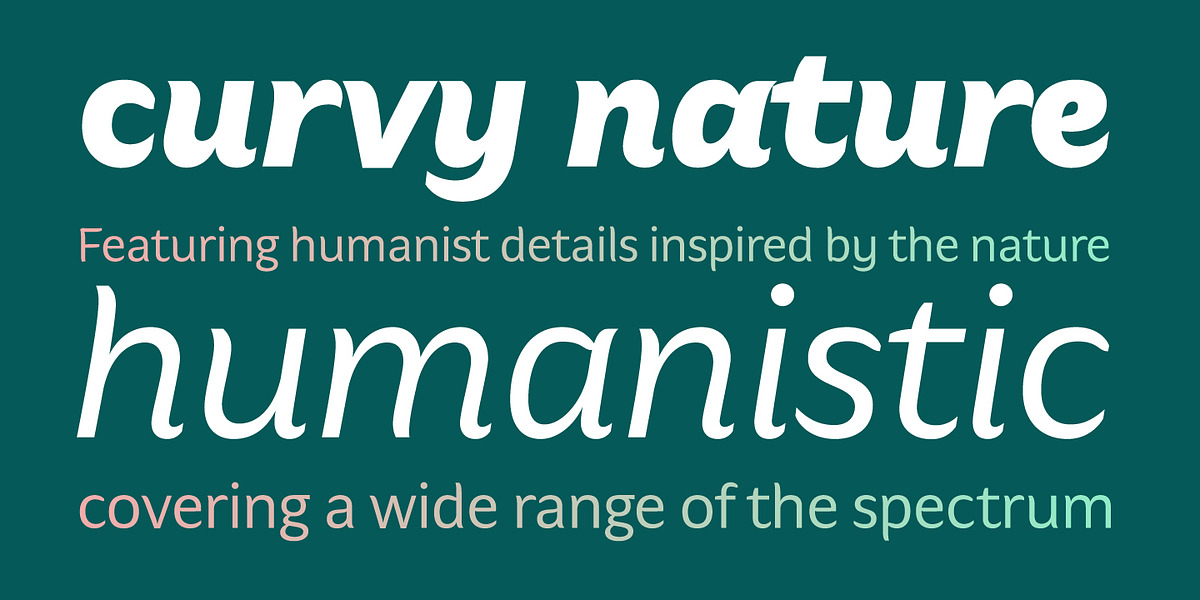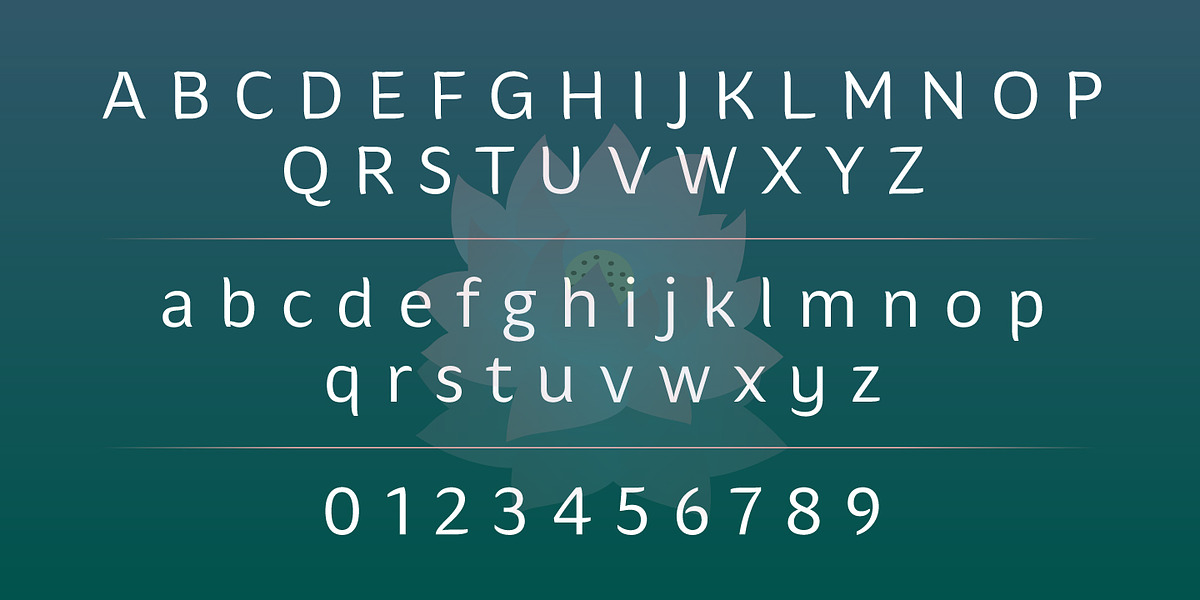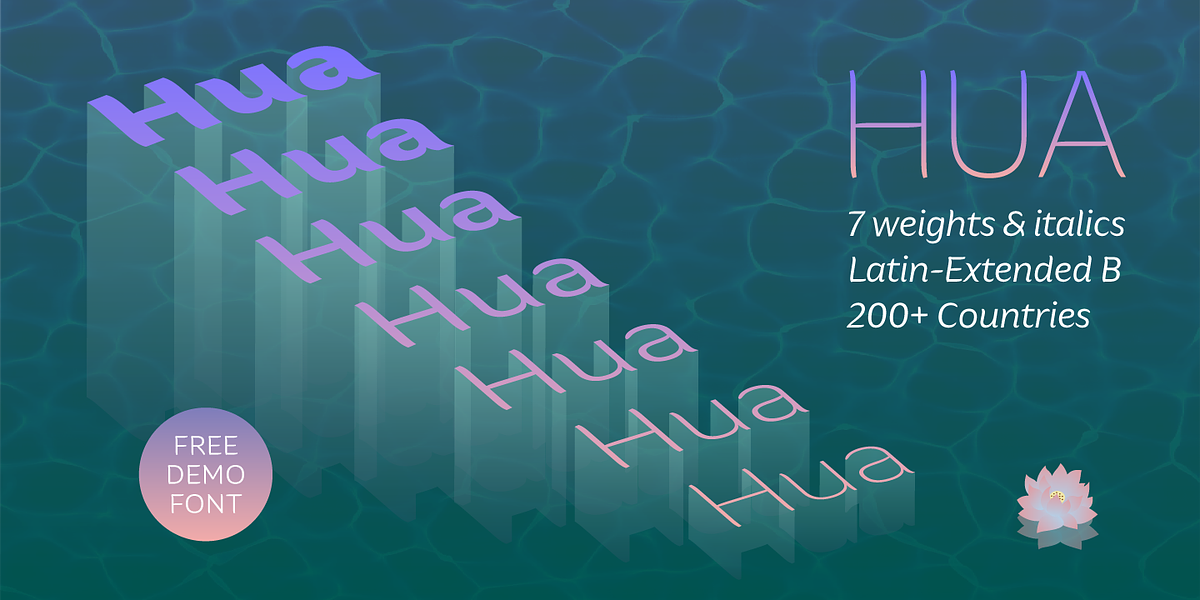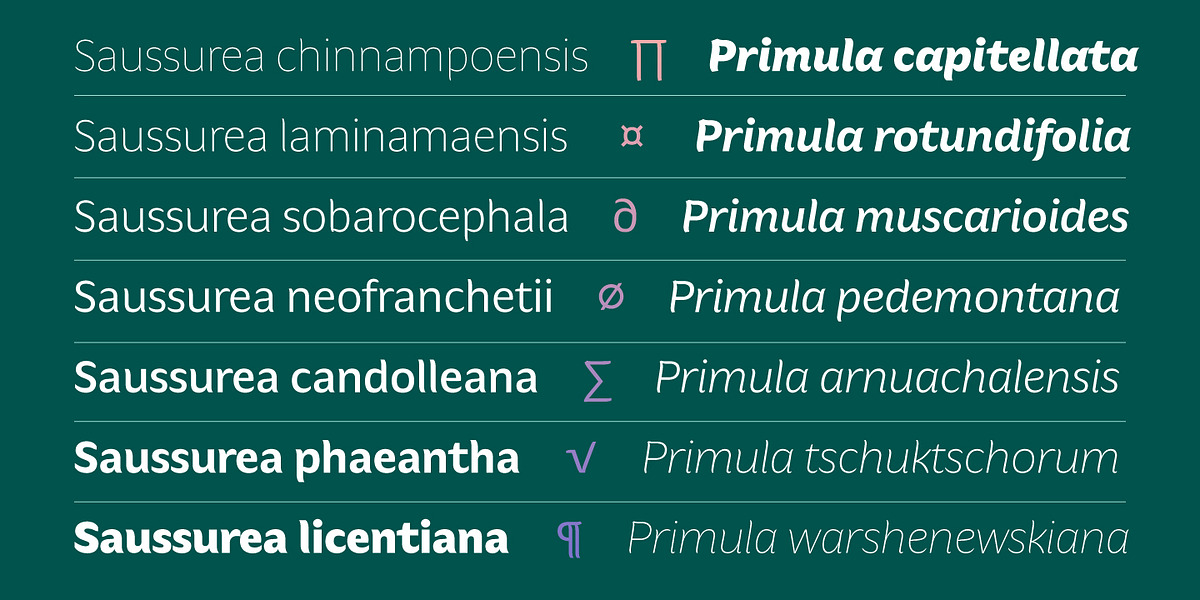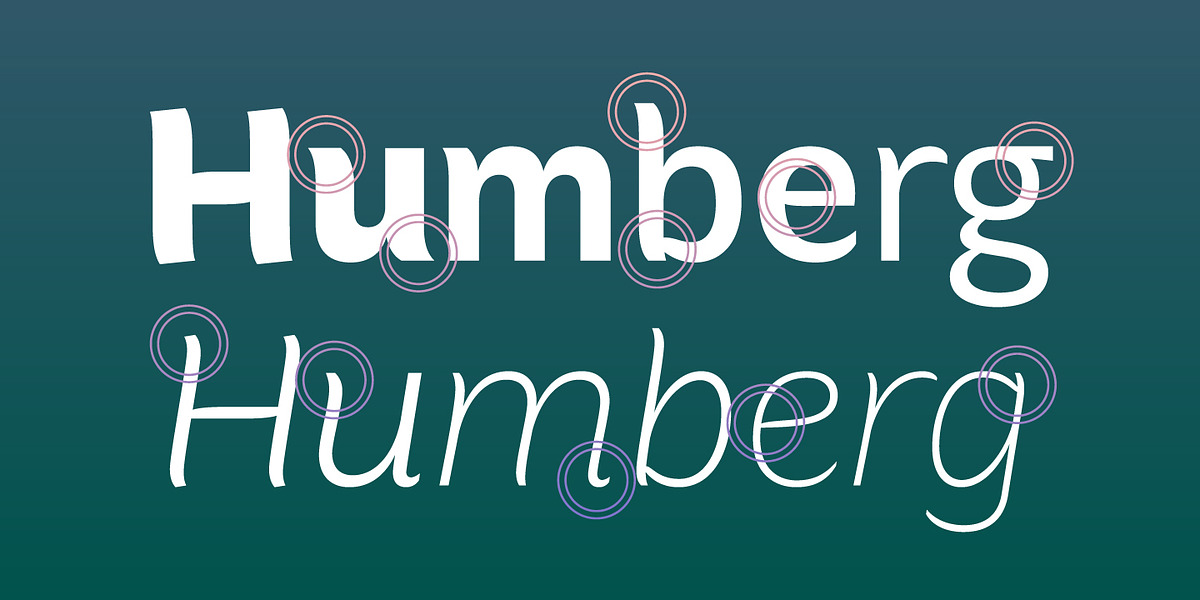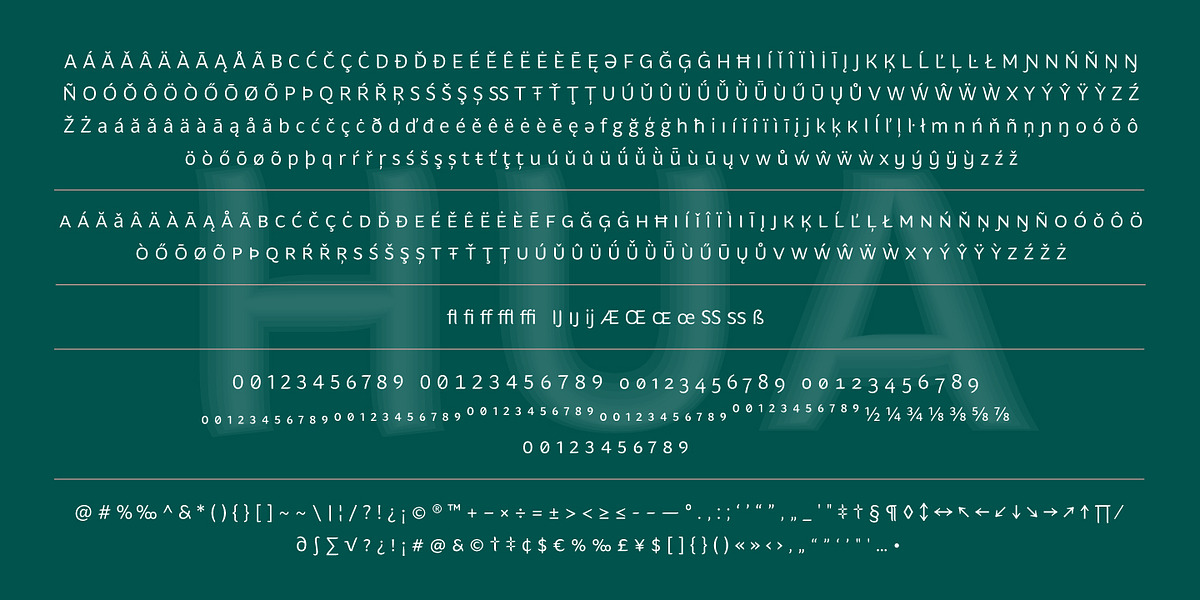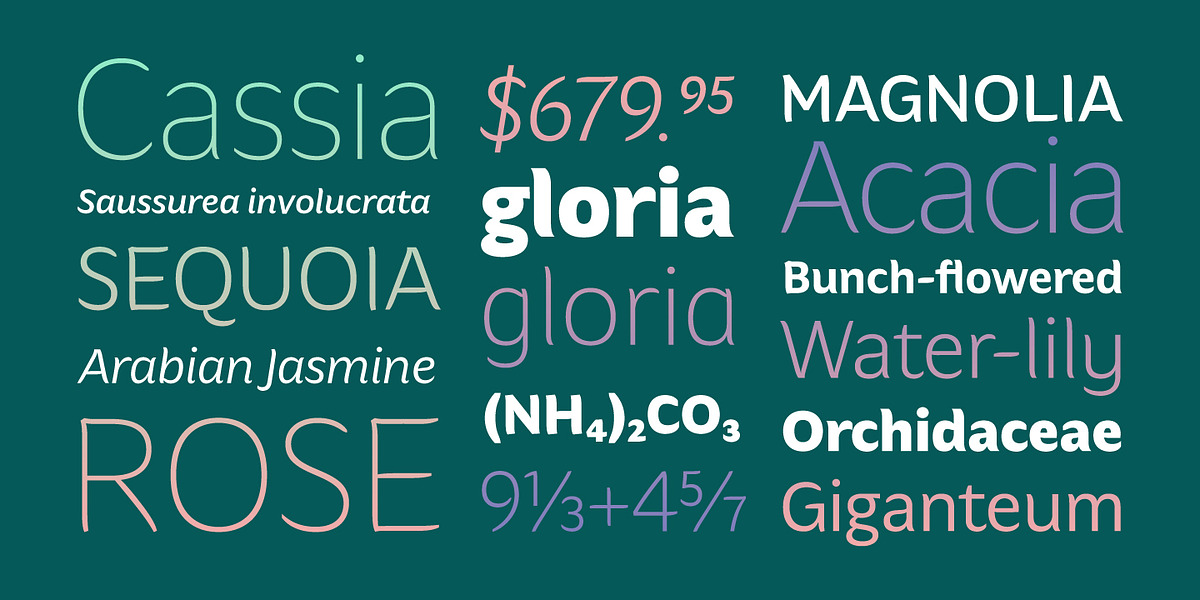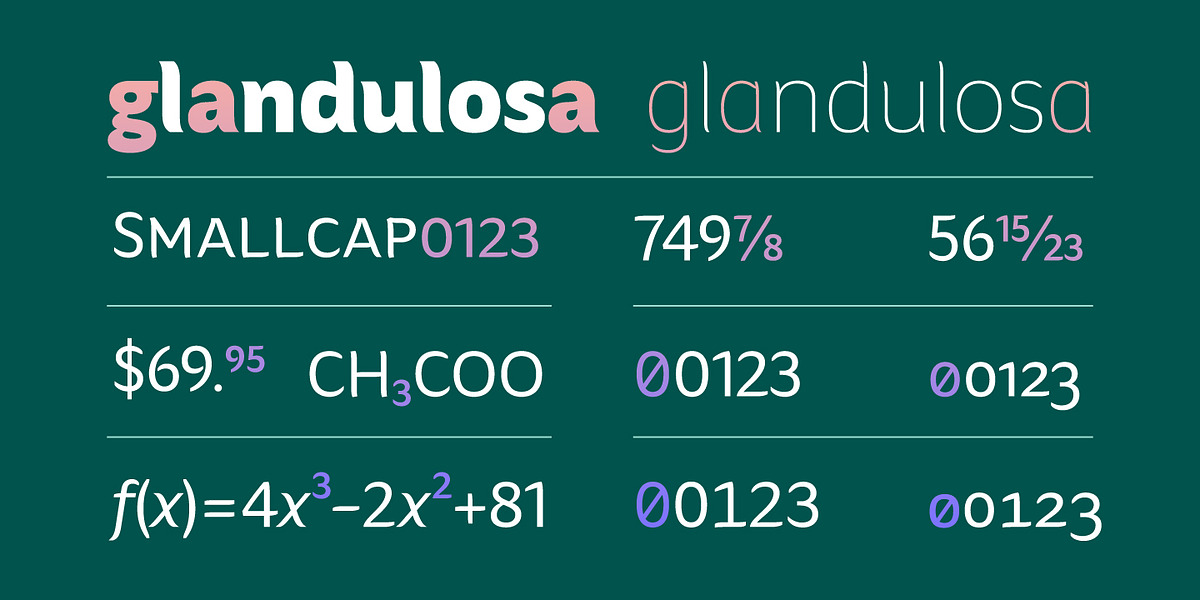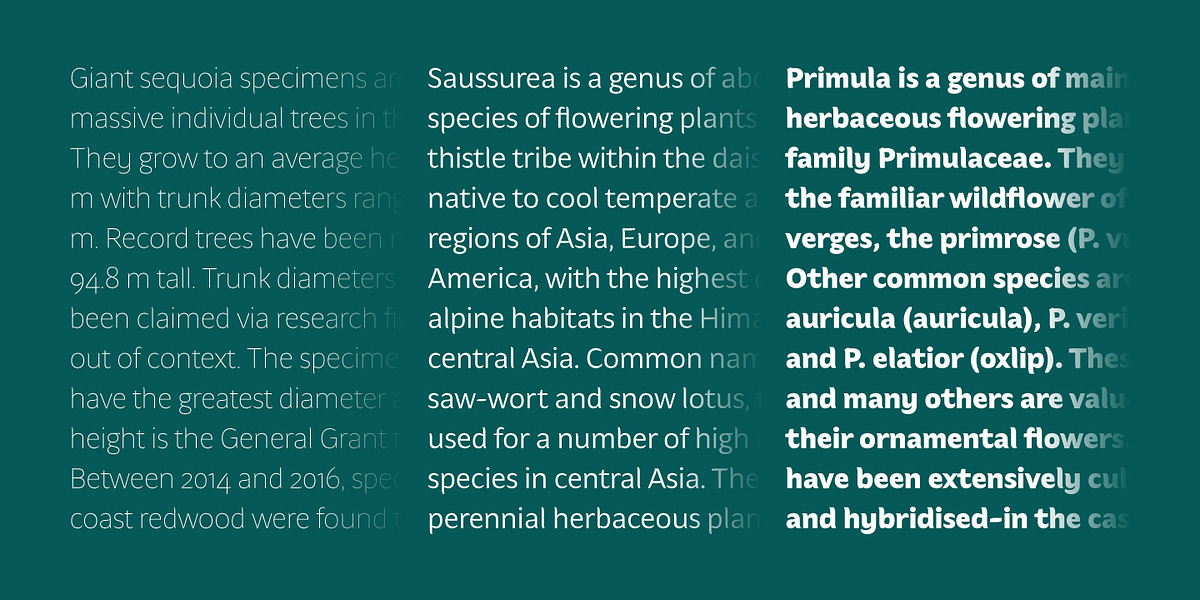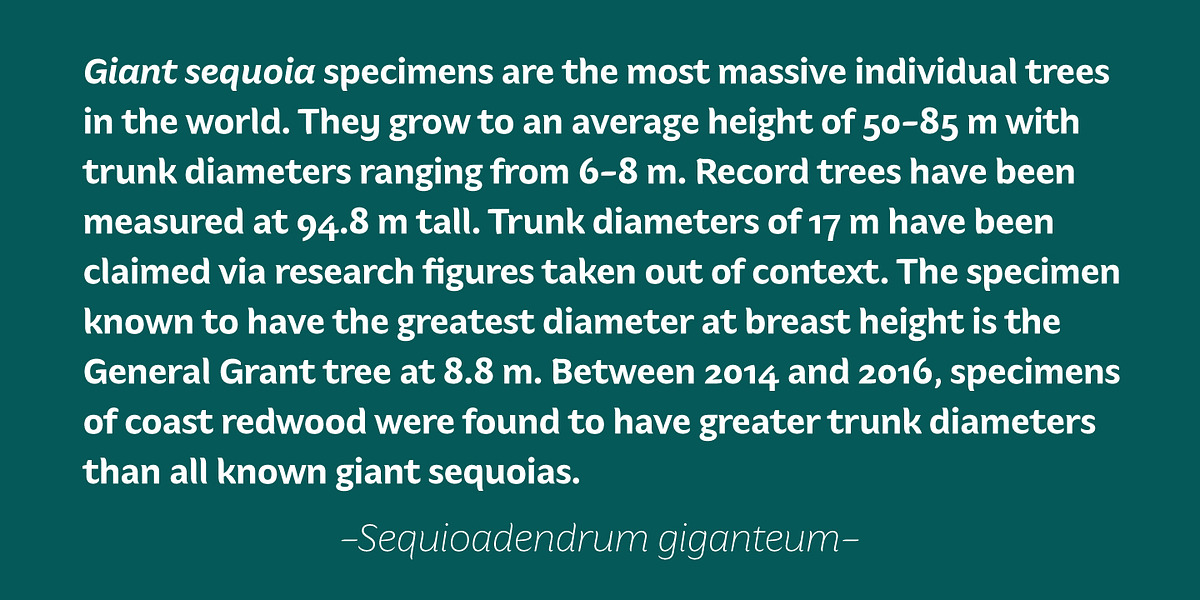
Hua
Hua is a humanist sans-serif font family designed to evoke the essence of nature. It features 14 weights, covering a wide range from thin to bold, and boasts unique italic letterforms inspired by both traditional calligraphic and simpler sans-serif styles. Its large x-height and fine-tuned proportions contribute to excellent legibility even at smaller sizes. Hua supports over 200 Latin languages and includes various typographical features like small caps, symbols, fractions, and support for superscript and subscript.